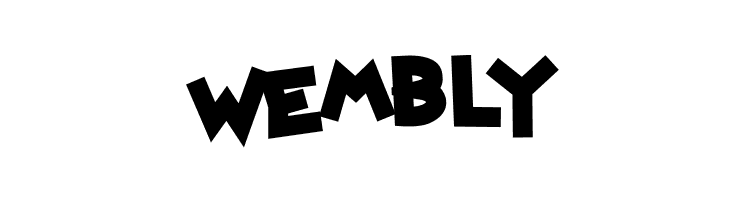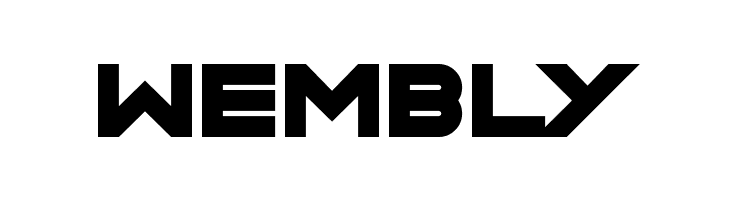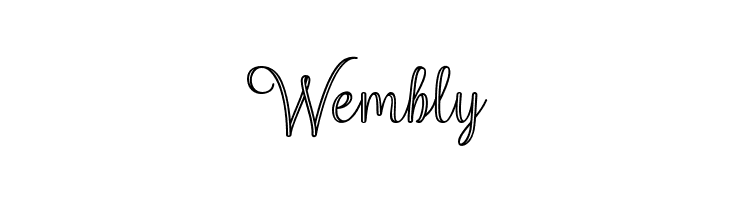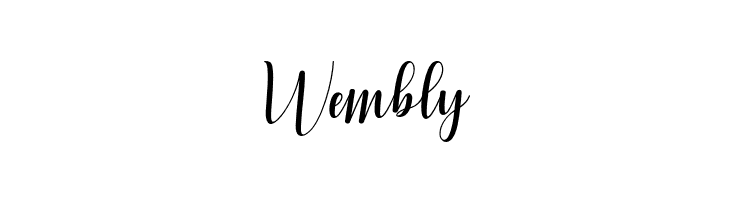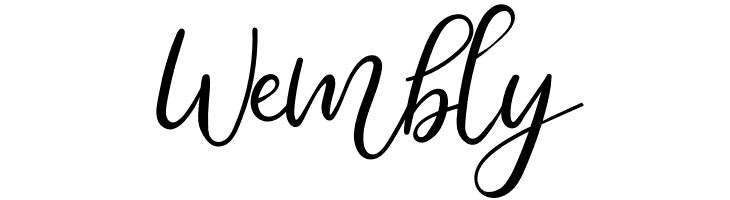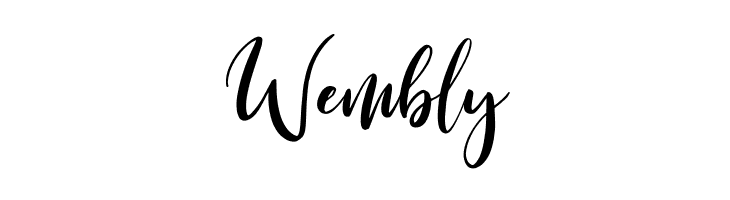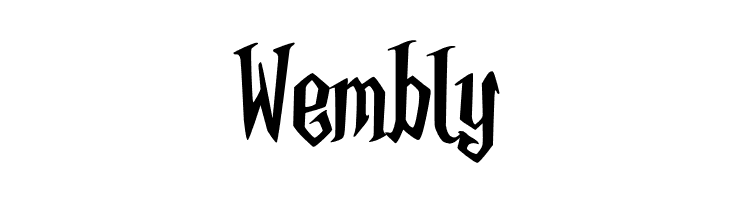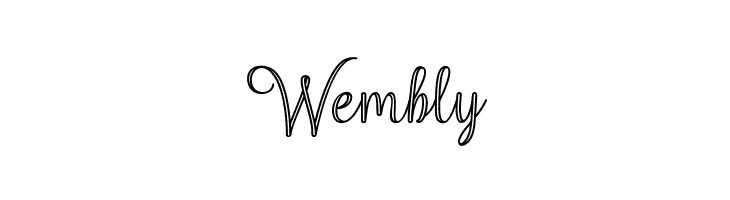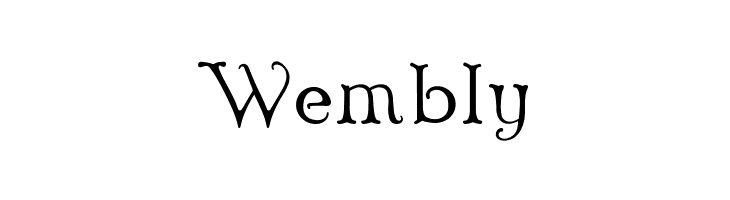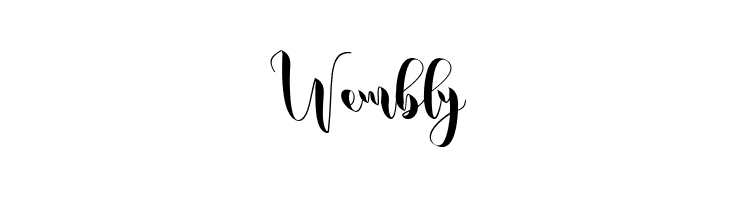
A bold, dynamic font with a 3D effect and angular design.
An elegant script font with intricate swirls and artistic flourishes.
An elegant and flowing script font with intricate swirls and loops.
An elegant script font with flowing, cursive strokes and artistic flair.
An elegant, cursive script font with flowing, interconnected letters.
An elegant, flowing script font with medium contrast and smooth cursive letterforms.
An elegant, decorative script font with flowing, interconnected letterforms.
A bold, decorative font with a Mexican-inspired, playful style and italicized slant.
A bold, decorative font with intricate patterns, inspired by traditional Mexican design.
A bold, italic, and decorative font with intricate patterns and a dynamic style.
A bold, decorative font with intricate patterns and a festive, three-dimensional style.
A bold, blackletter-inspired font with sharp angles and intricate details.
A whimsical, romantic script font with decorative heart accents.
An elegant script font with flowing, cursive lines and a refined aesthetic.
A bold, geometric font with a futuristic and modern design.
A bold, sketch-like font with a hand-drawn, textured appearance.
A bold, flowing script font with expressive strokes and elegant connections.
A graceful script font with fluid, cursive strokes and elegant loops.
A flowing, cursive font with elegant, interconnected strokes.
A bold, playful font with a cartoon-like, whimsical style.
A futuristic, geometric font with a digital and technological aesthetic.
A playful, hand-drawn font with whimsical, uneven strokes.
A lively, expressive handwritten font with fluid strokes and dynamic movement.
A whimsical, decorative font with a playful, hand-drawn style.
A dynamic and elegant script font with flowing letterforms and a sophisticated style.
A bold, gothic-inspired font with sharp, angular lines.
A dynamic and flowing script font with elegant cursive letterforms.
A modern, handwritten font with elegant, flowing characters.
A bold, cursive font with elegant, interconnected characters and dramatic flourishes.
A bold, geometric font with a chain-like, industrial design.
A bold, expressive script font with sweeping curves and high contrast.